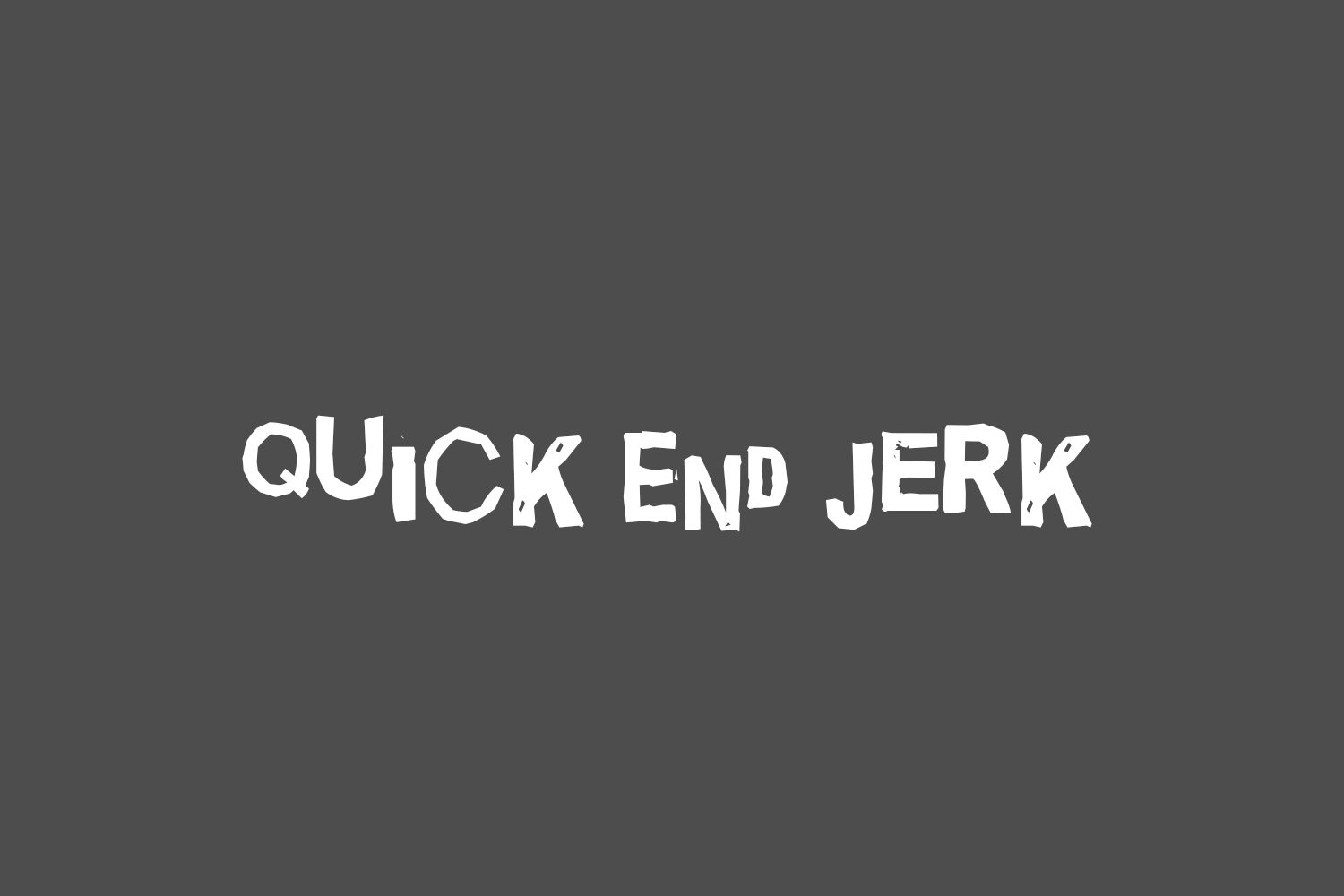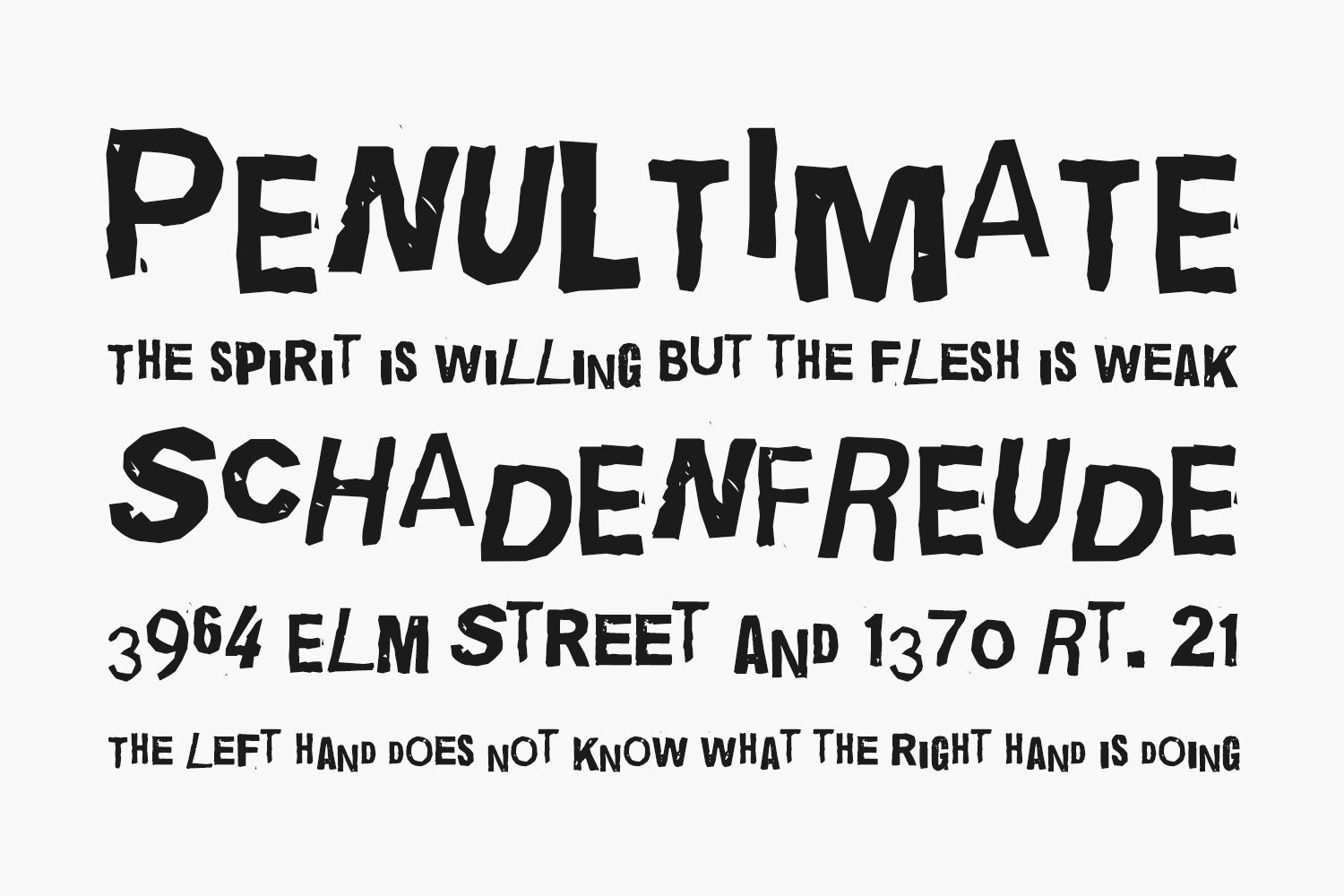
A slightly different take on the standard “ransom note” font, the letters in this one are more distorted but are all upright. There’s a few extra letters here, use the character map to locate them. This font is free for both personal and commercial purposes.
Designed by Vic Fieger